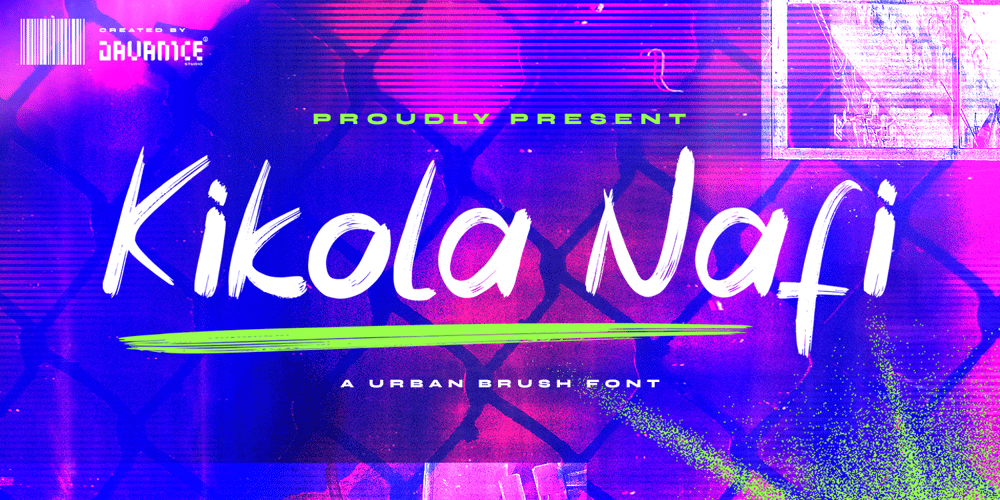
Kikola Nafi Font Family was designed by Revsani Hisyam Wardhana and published by Javanice Studio. Kikola Nafi contains 1 styles and family package options. Introducing Kikola Nafiby Javanice StudioKikola Nafi is A Urban Brush FontKikola Nafi is perfect for branding project, apparel, labels, magazines, books, greeting / wedding cards, packaging, fashion, make up, stationery, and any type of advertising purpose or just used to express words above the background.This font includes Kikola Nafi also multilingual support.Enjoy the font, feel free to comment or feedback, send me PM or email.